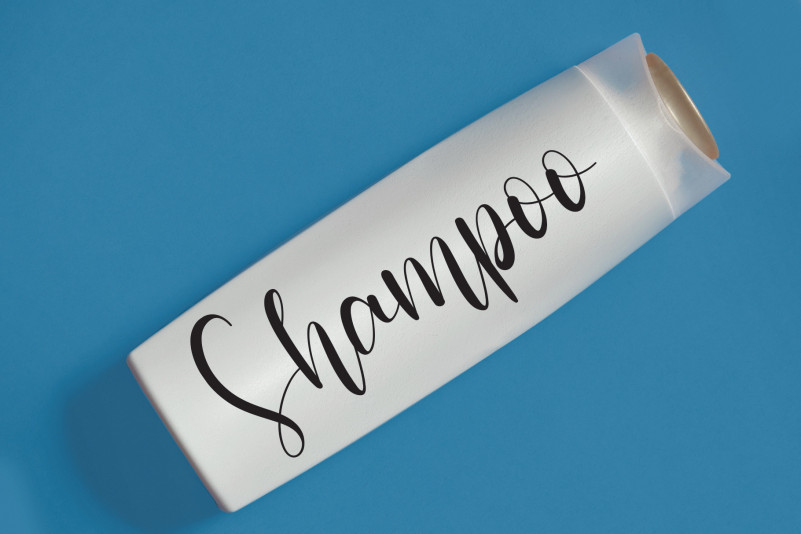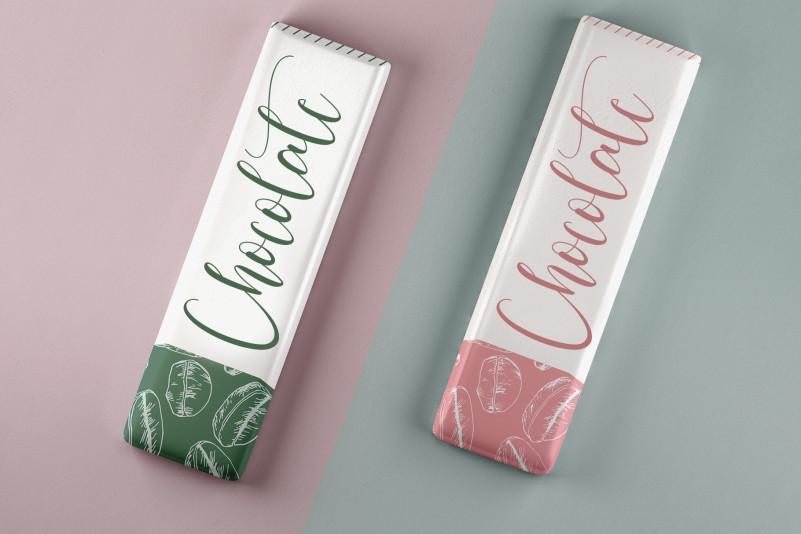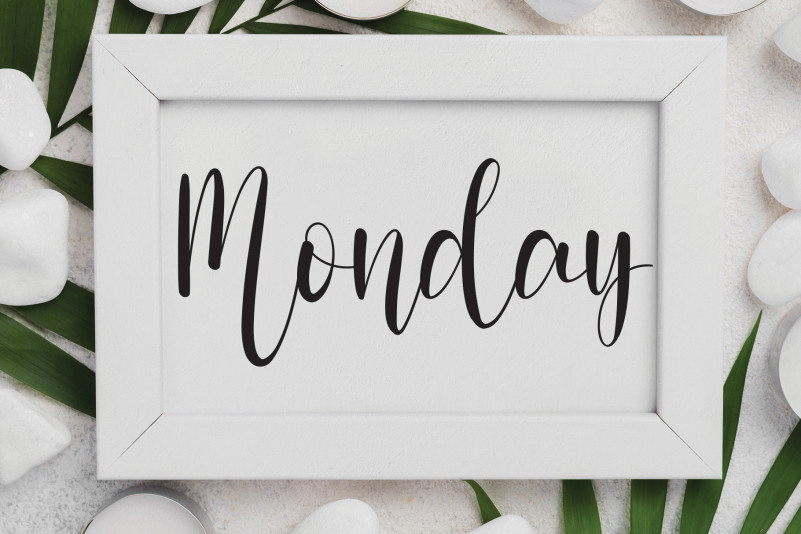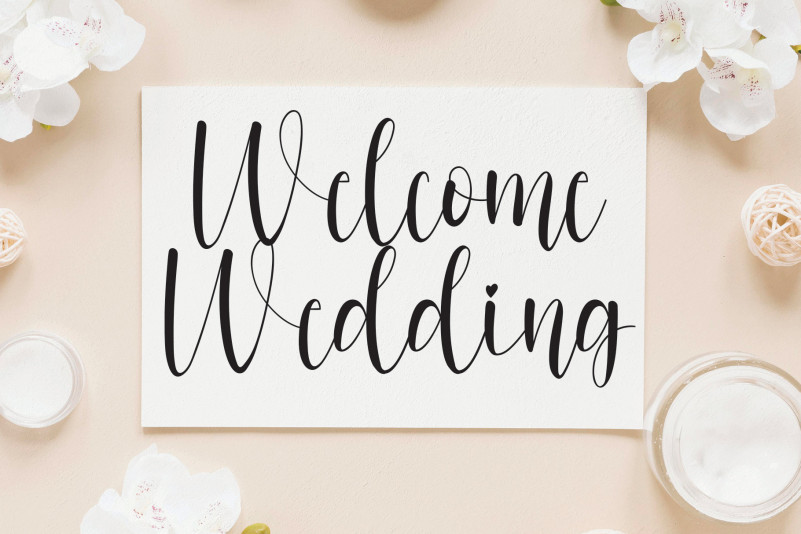
Sparkling Script Font
This is an attractive and playful handwritten font. With its carefully crafted characters, this typeface is a great fit for a variety of projects ranging from creative watermarks and photography to labels or business cards!
the latest style letters are perfect for wall displays, wedding invitations, social media post logos, advertisements, product packaging, product designs, labels, photography, watermarks, invitations, stationery, and any project that requires taste handwriting.